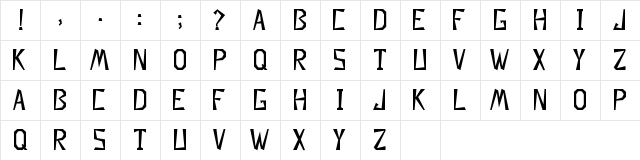
Jimmy Regular Free Font
Jimmy Regular
Foundry: Jaime Rangel Castro
Designer: Jaime Rangel Castro
Jimmy Family
Design Context for Jimmy
Jimmy is a composed and adaptable typeface that performs quietly and consistently across a wide range of design contexts.